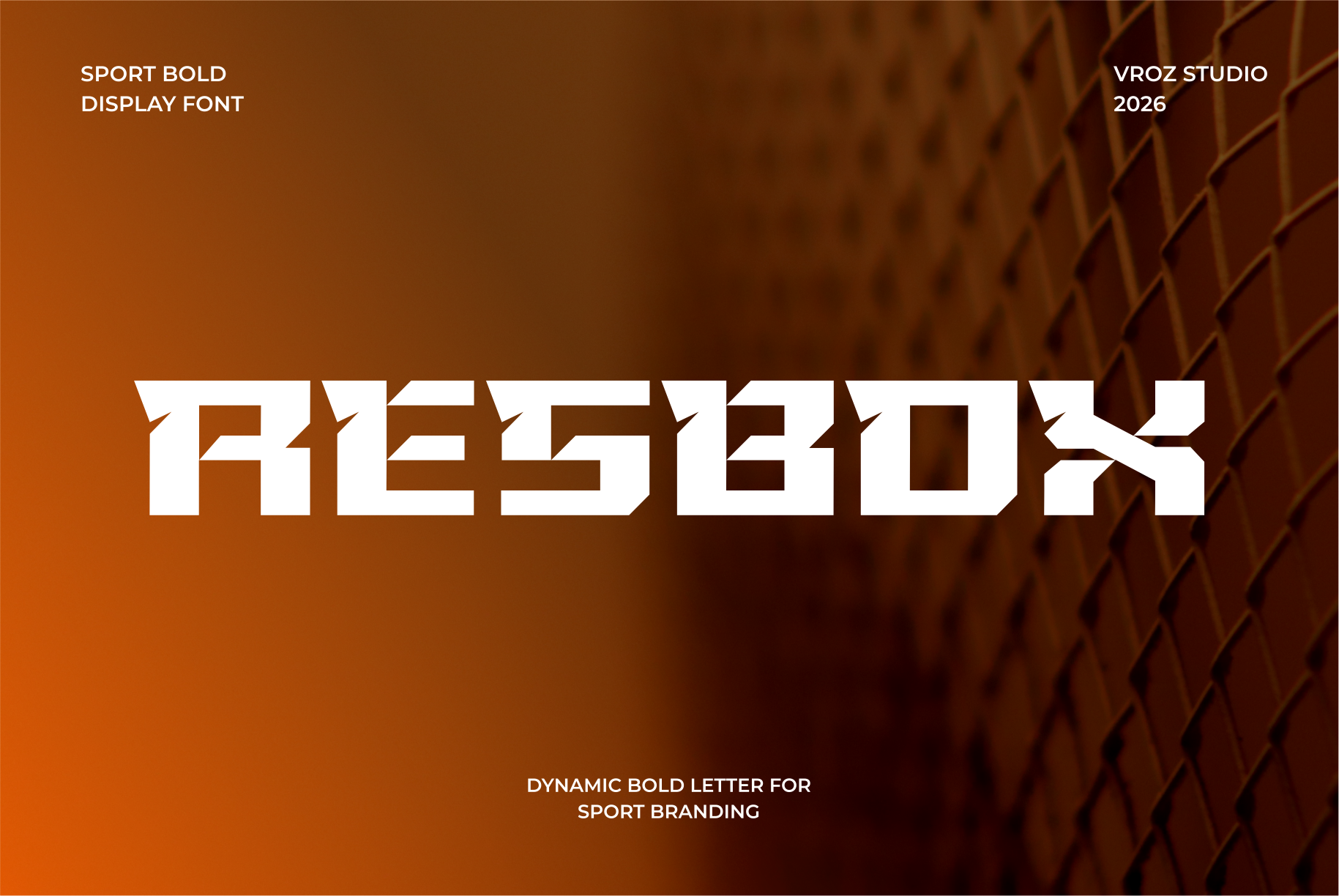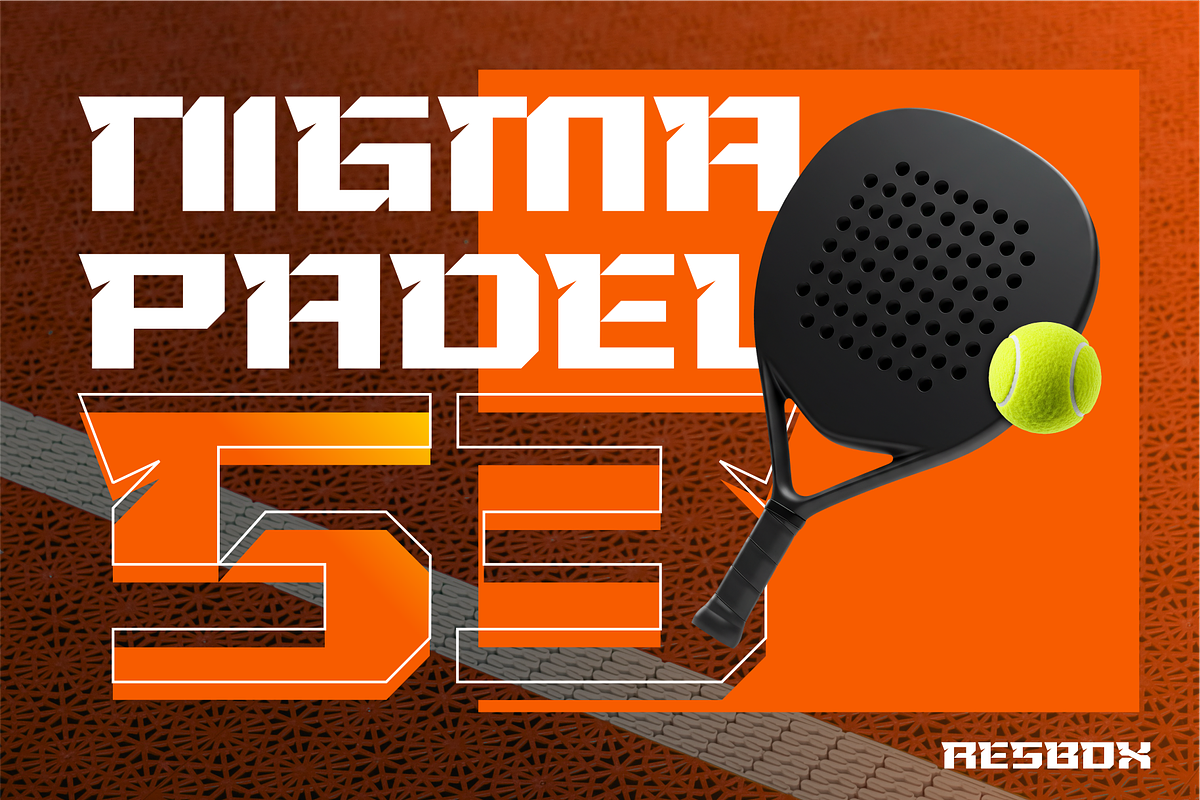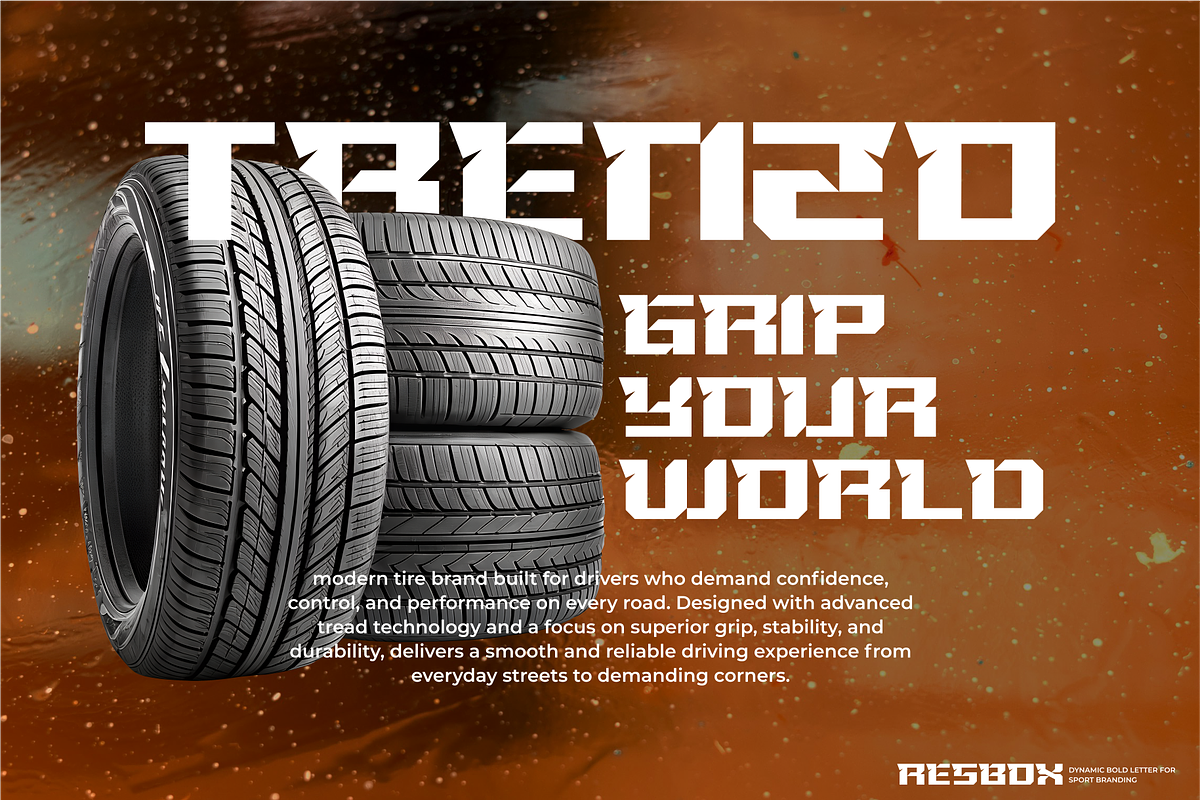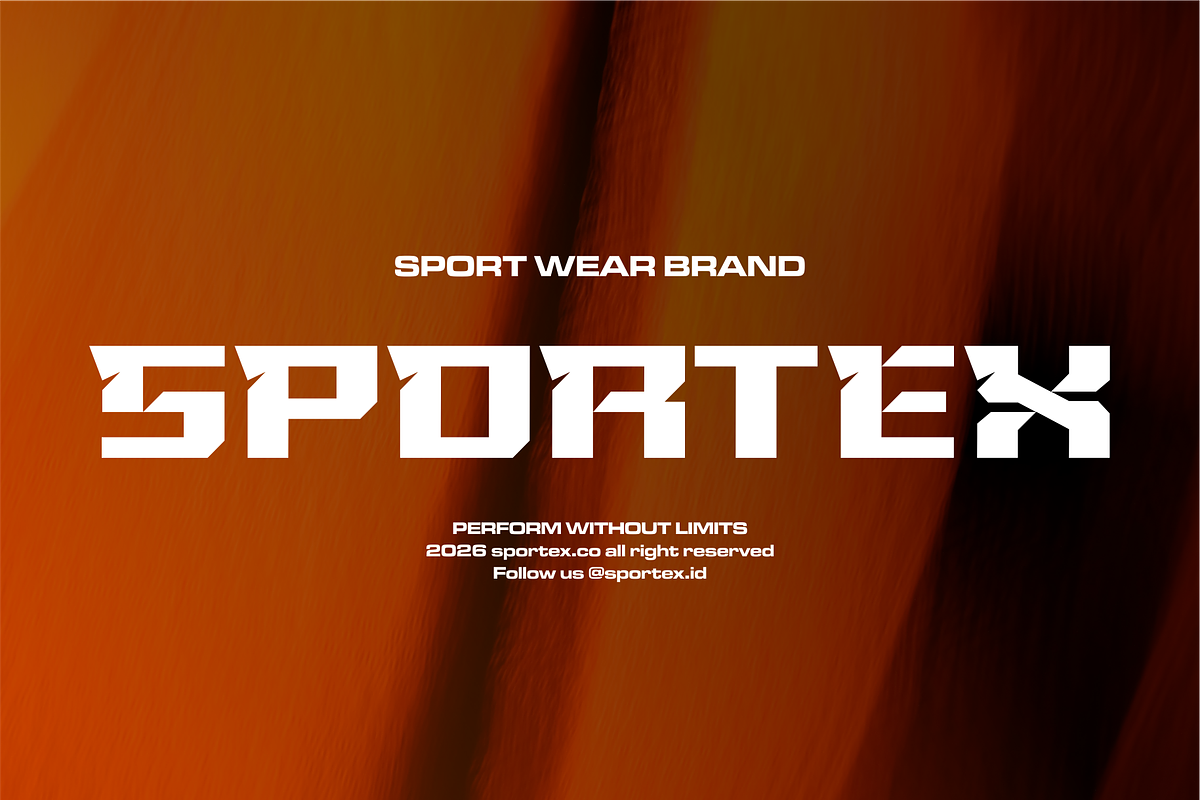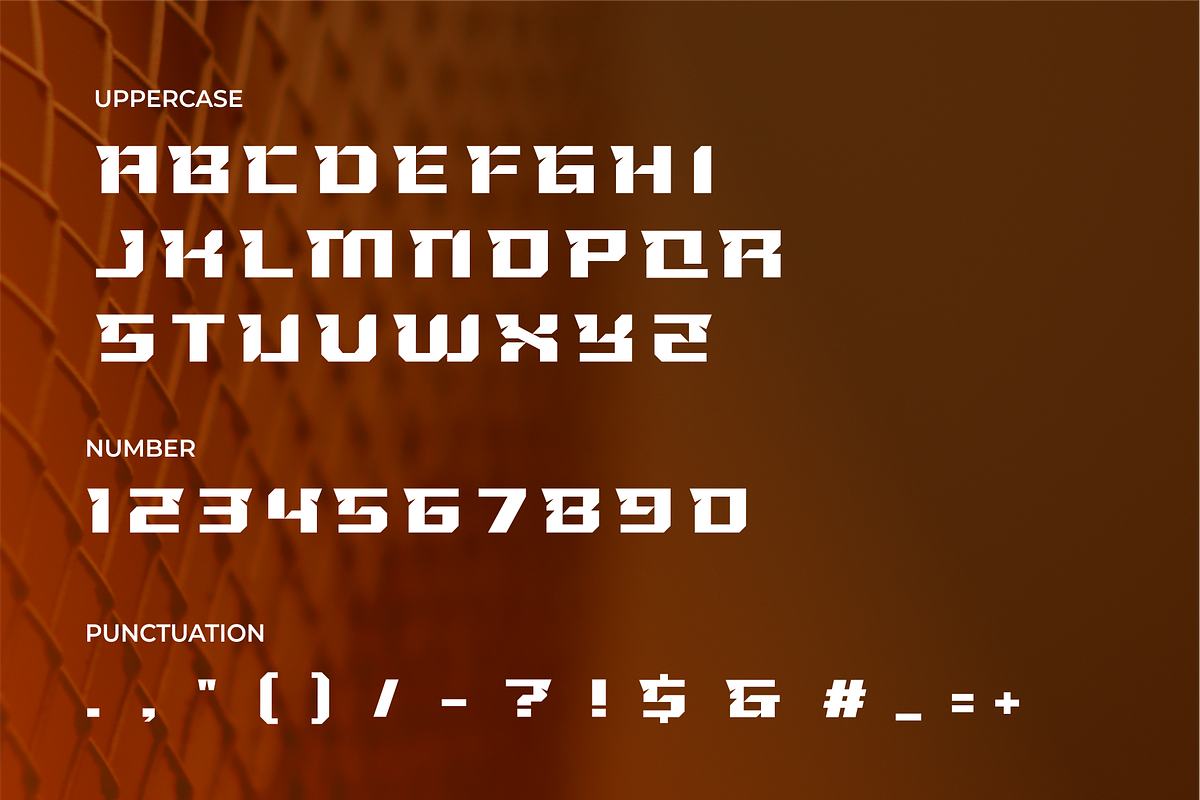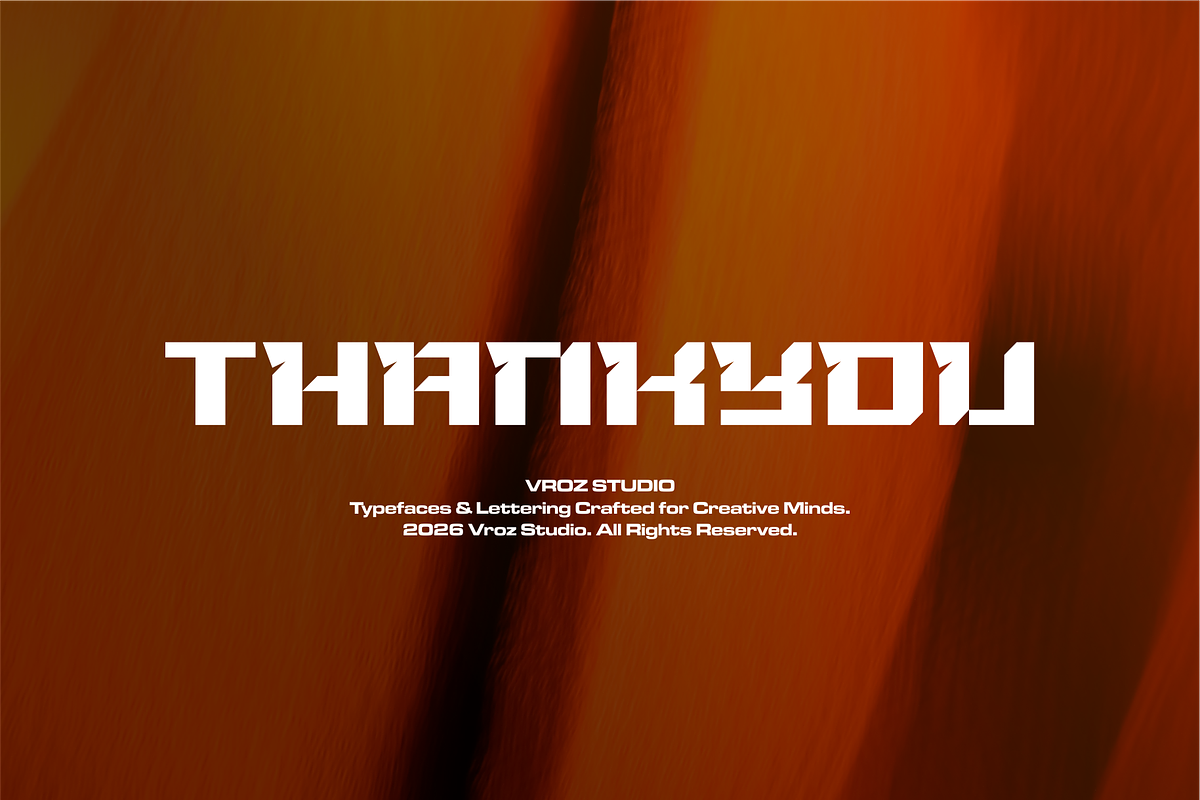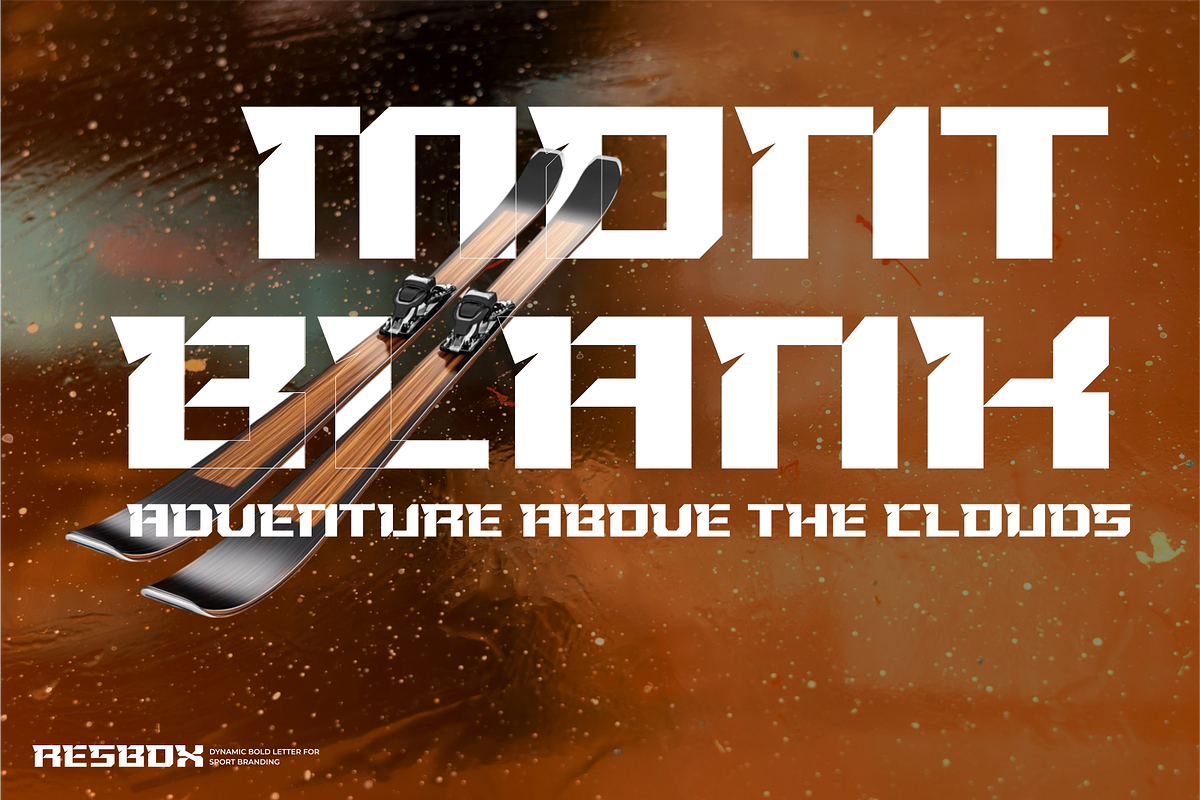
RESBOX – Bold Sport Font
RESBOX is a bold sport display font crafted for strength, speed, and high-impact visuals. With sharp details, solid proportions, and a dynamic athletic character, RESBOX brings a powerful and modern look to sports and competitive designs.
Perfect for sports branding, team identities, gym and fitness graphics, football and basketball posters, racing designs, esports visuals, logos, and digital promotions. RESBOX offers strong readability while maintaining a bold, energetic, and professional sporting aesthetic.
RESBOX is created to support strong, modern, and competitive designs. Whether for branding, promotion, or digital media, this font delivers clarity, power, and consistency across every application.